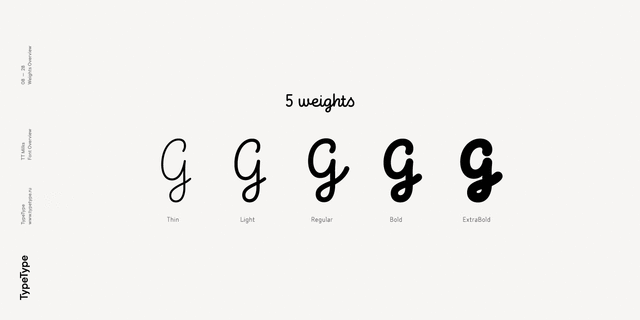
TT Milks Script (5)
About TT Milks Script subfamily is a satellite to the basic typefaces and features 5 weights. Every typeface of the TT Milks Script subfamily consists of 801 glyphs and supports a lot of OT features: ordn, frac, case, sups, sinf, numr, dnom, tnum, onum, pnum, liga, calt.
Initially the idea for TT Milks was to create a collection of typefaces to be used for packaging and branding of dairy products. We've started by creating a main sans-serif and a supporting script, worked on their compatibility, and created an appropriate number of type weights. At the same time, while working on the initial idea, we've tested all possible glyph variations, which resulted in a large decorative designer font family. Thanks to a variety of elements, TT Milks collection has exceeded its initial idea and now offers an unlimited application range.
The font family was designed by Ivan Gladkikh and TypeType team in 2017.